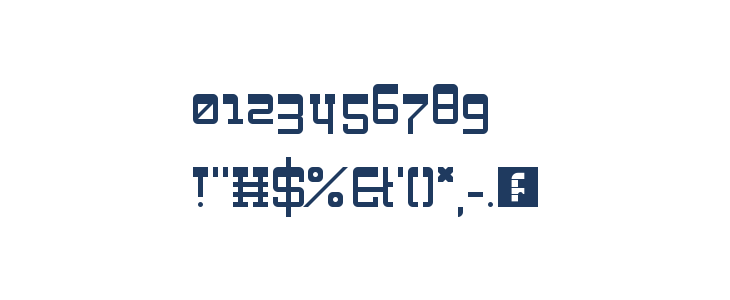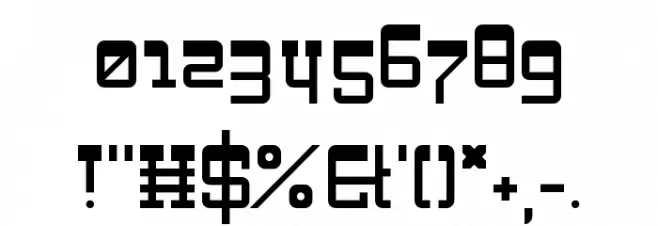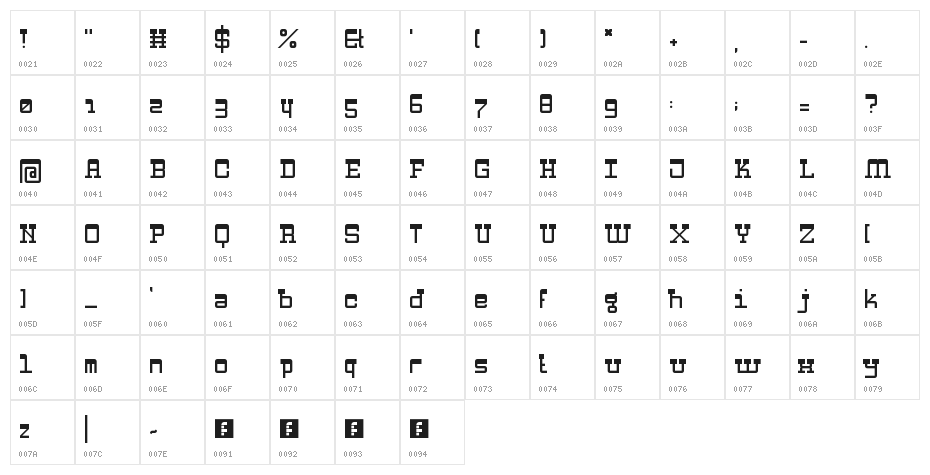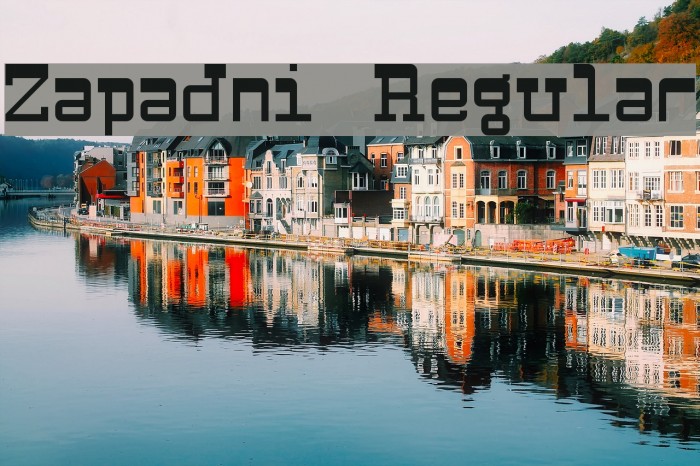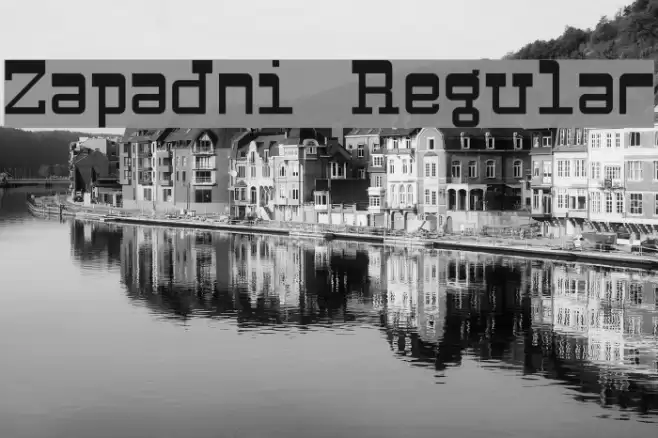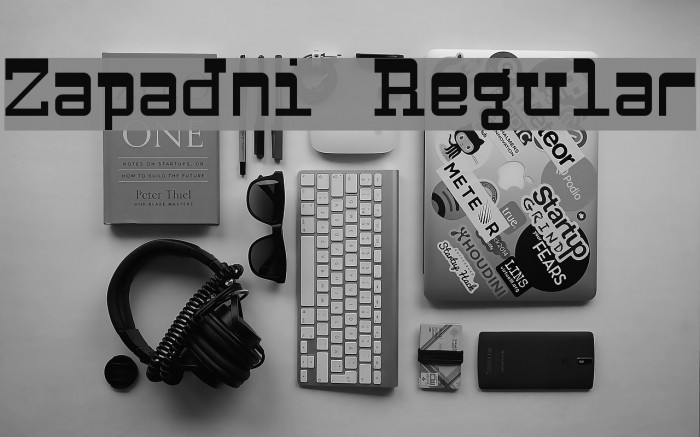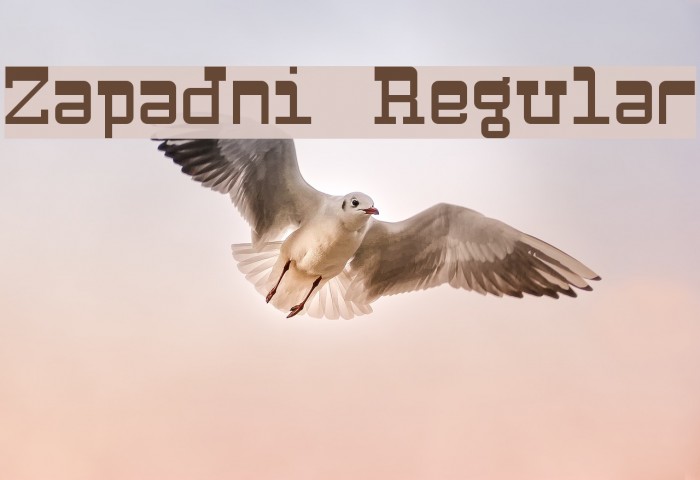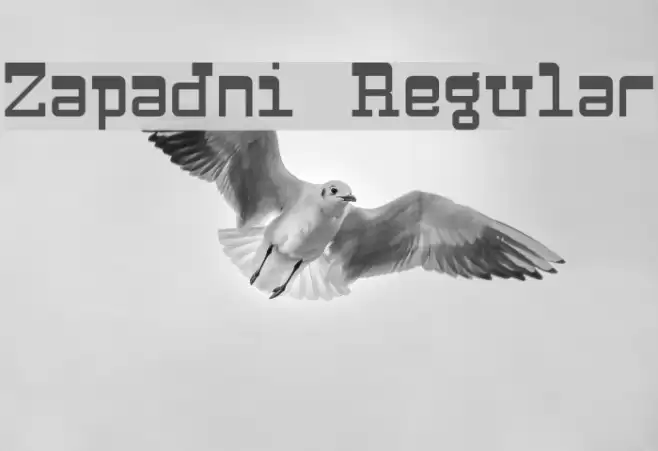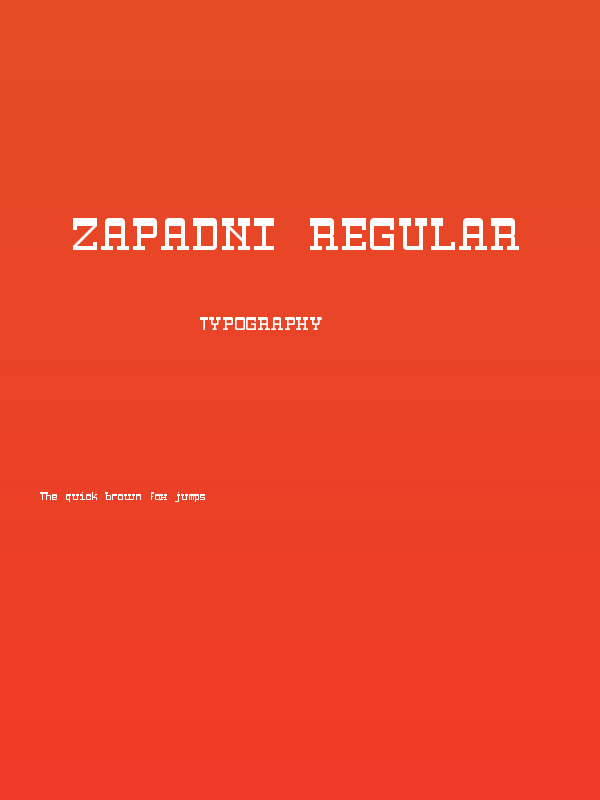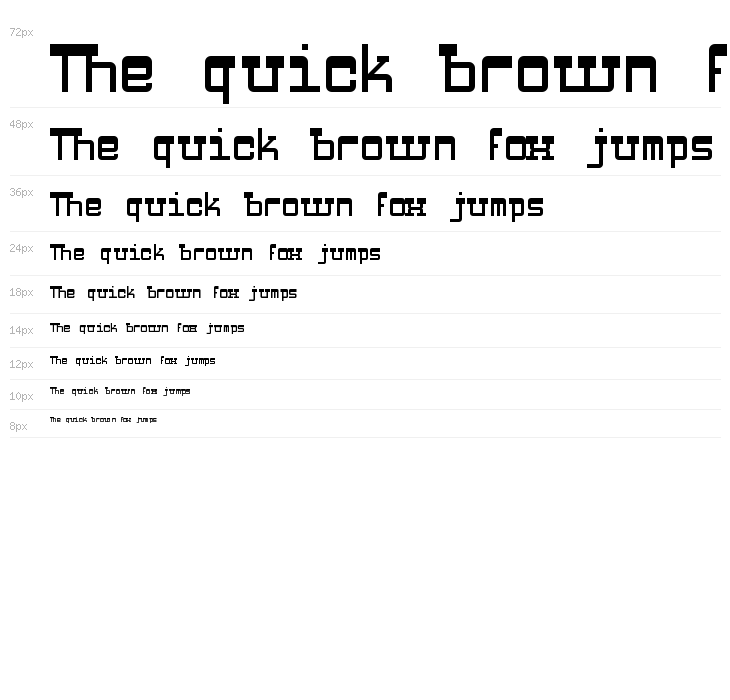
Zapadni Regular Font
Zapadni Regular Description
This font features a bold, geometric design with a strong, industrial feel. The characters are constructed with uniform stroke widths, giving it a monospaced appearance. The uppercase letters are blocky and angular, while the lowercase letters maintain a similar structure with slightly softer edges. The numerals and special characters follow the same design principles, ensuring consistency across all glyphs. The font's style is reminiscent of early digital or mechanical typefaces, making it suitable for projects that require a modern yet retro aesthetic.
| Proposed Projects | Ideal for technology branding, retro-themed designs, posters, and digital interfaces. |